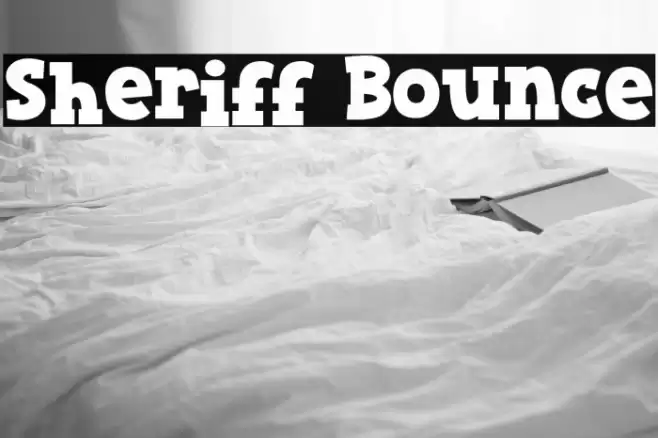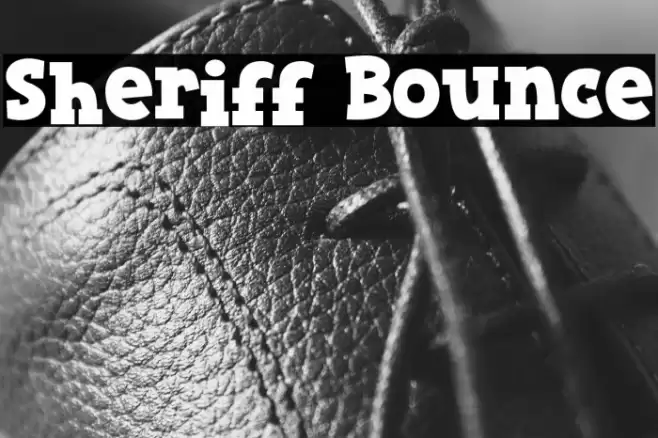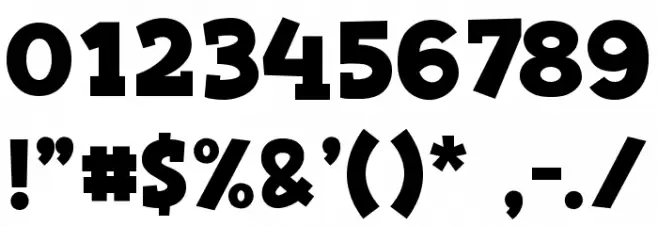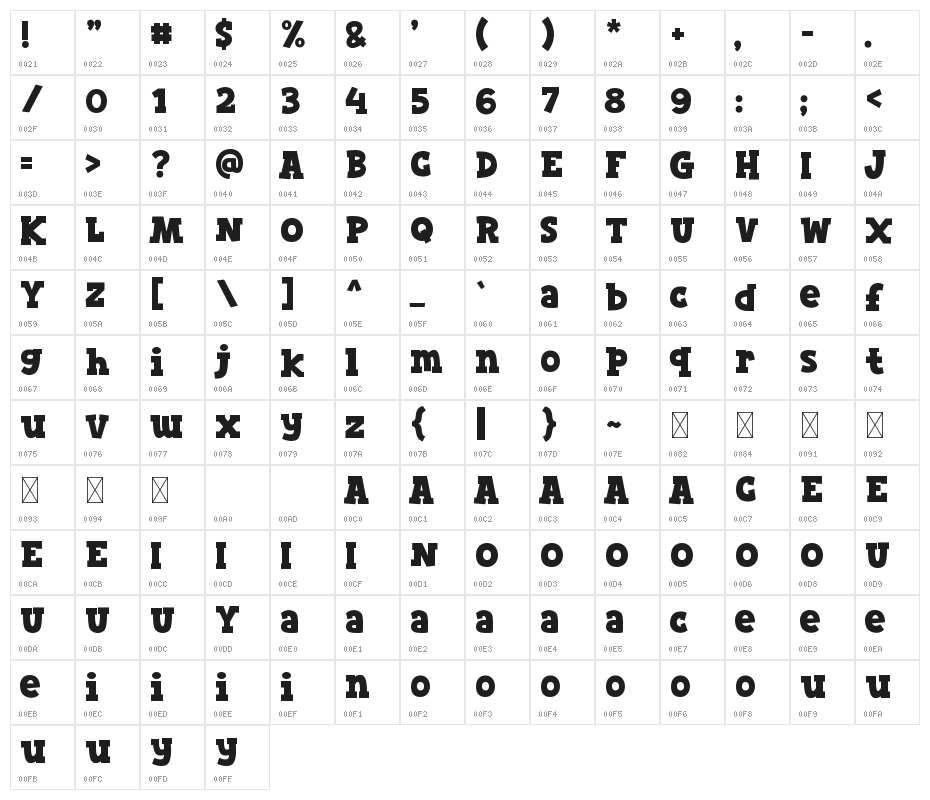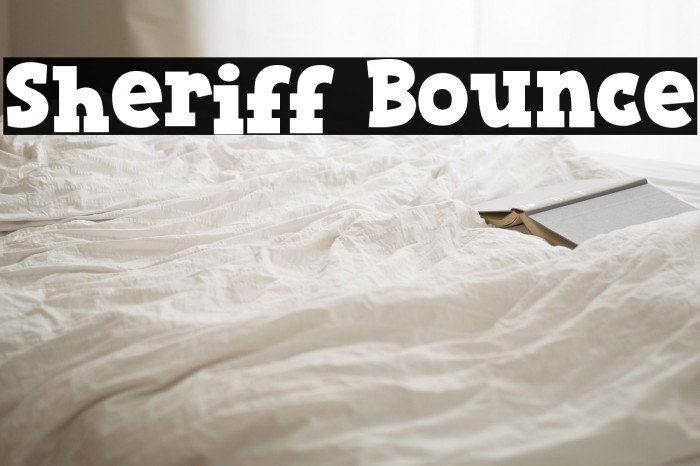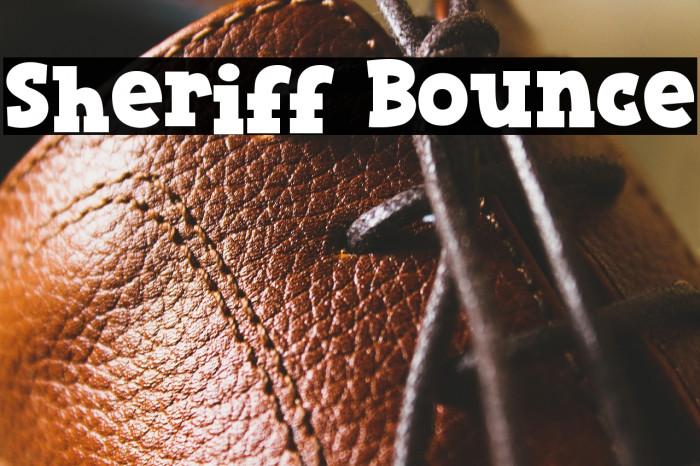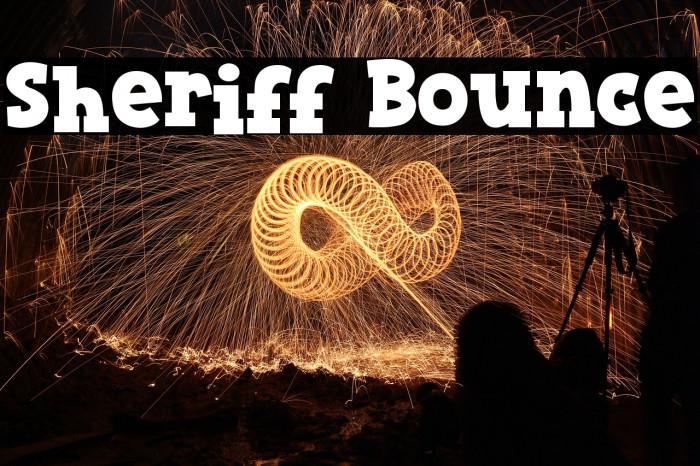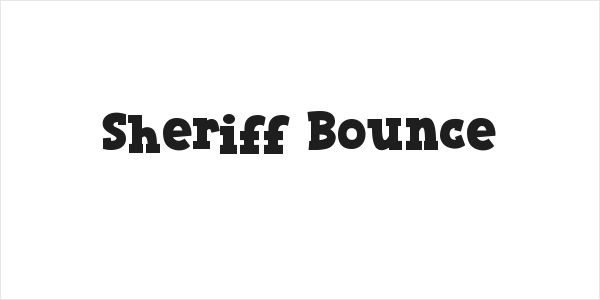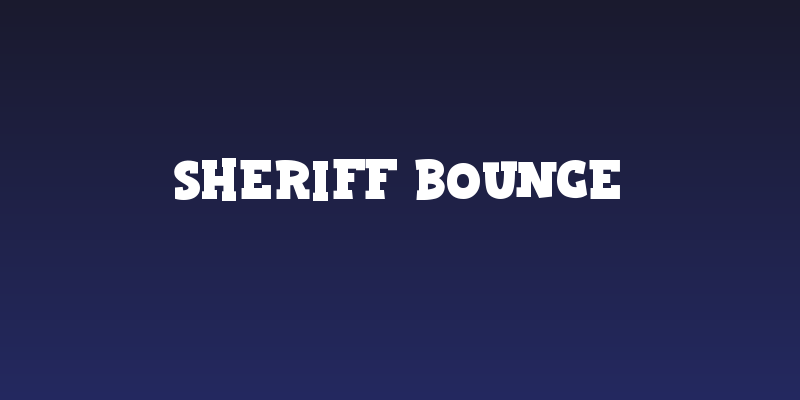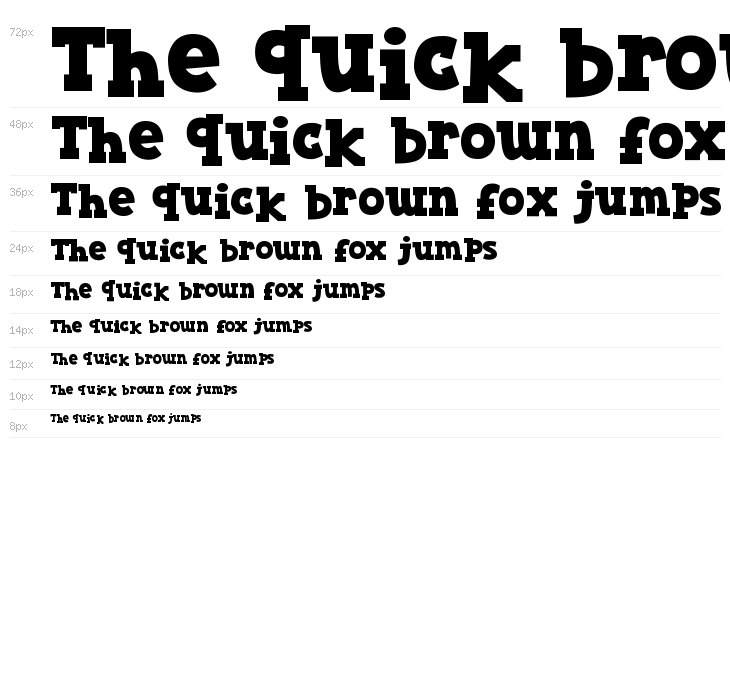
Sheriff Bounce Font
Sheriff Bounce Description
This font features a bold and playful design with a distinct Western flair. The characters are robust and have a bouncy, energetic feel, making them stand out with a strong presence. The uppercase letters are particularly striking, with exaggerated serifs and a slightly uneven baseline that adds to the whimsical nature of the font. The lowercase letters maintain the same playful style, ensuring consistency across the typeface. Numbers and special characters are designed with the same boldness and flair, making them suitable for attention-grabbing headlines or signage.
A bold, playful font with a Western flair and bouncy, energetic characters from Cartoon fonts.